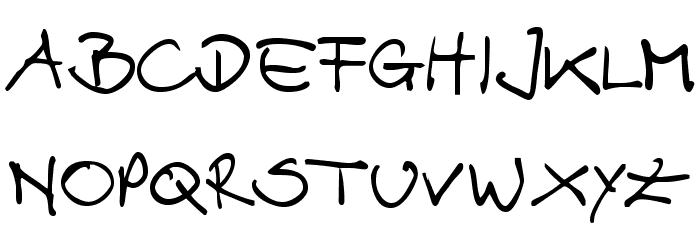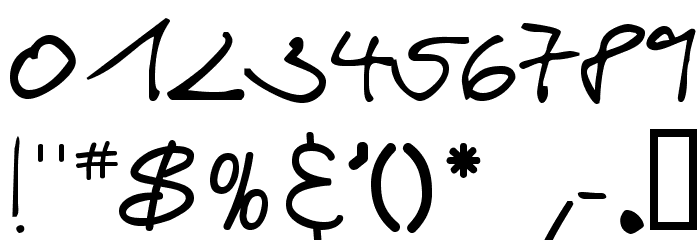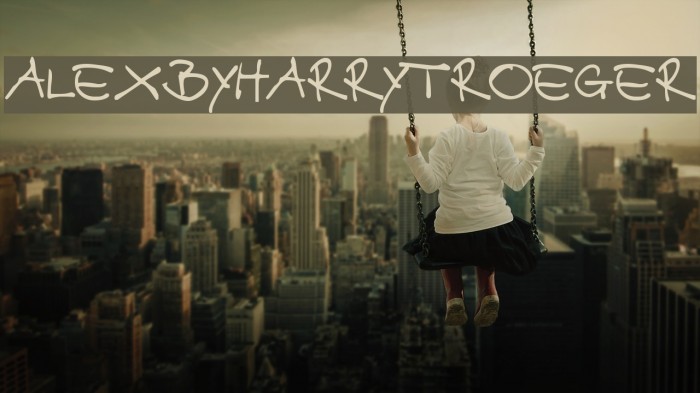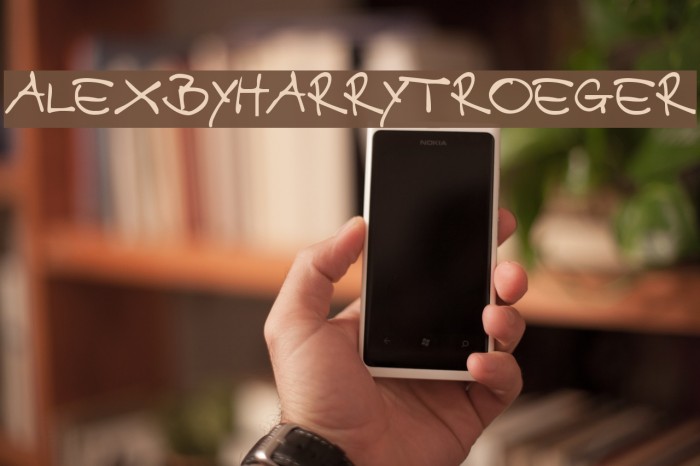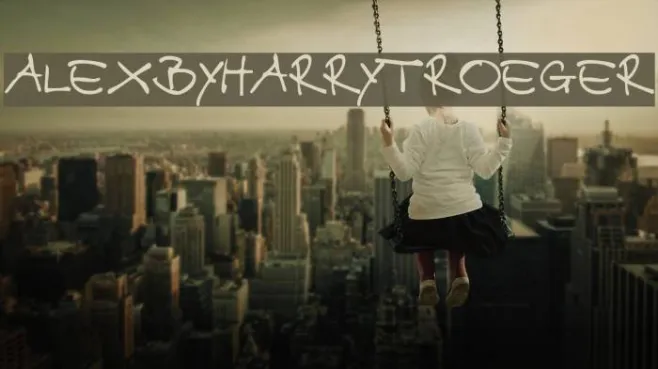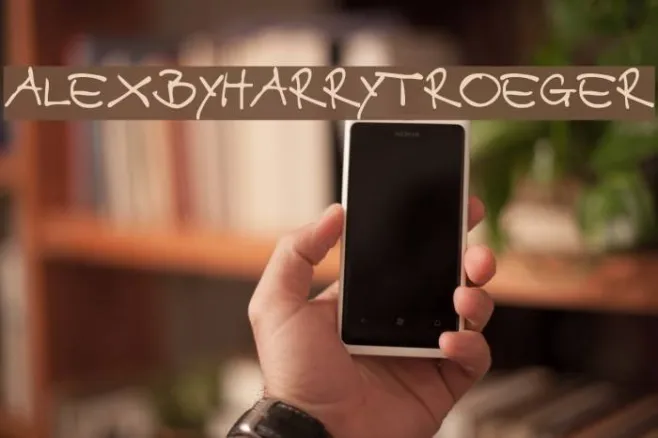
AlexbyHarryTroeger Font
This font features a playful and casual handwritten style, characterized by its fluid and dynamic strokes. The letters have a natural, organic feel, with varying thickness that adds to its informal charm. The uppercase and lowercase letters maintain a consistent style, with rounded edges and a slight slant, giving the impression of being quickly penned. The numerals and special characters follow the same aesthetic, ensuring a cohesive look across all glyphs. This font is ideal for projects that require a personal touch, such as greeting cards, invitations, or informal branding.
A playful, handwritten font with fluid strokes and a casual style.
- Proposed Projects: Greeting cards, invitations, informal branding, personal notes.
- Overall Style: Casual